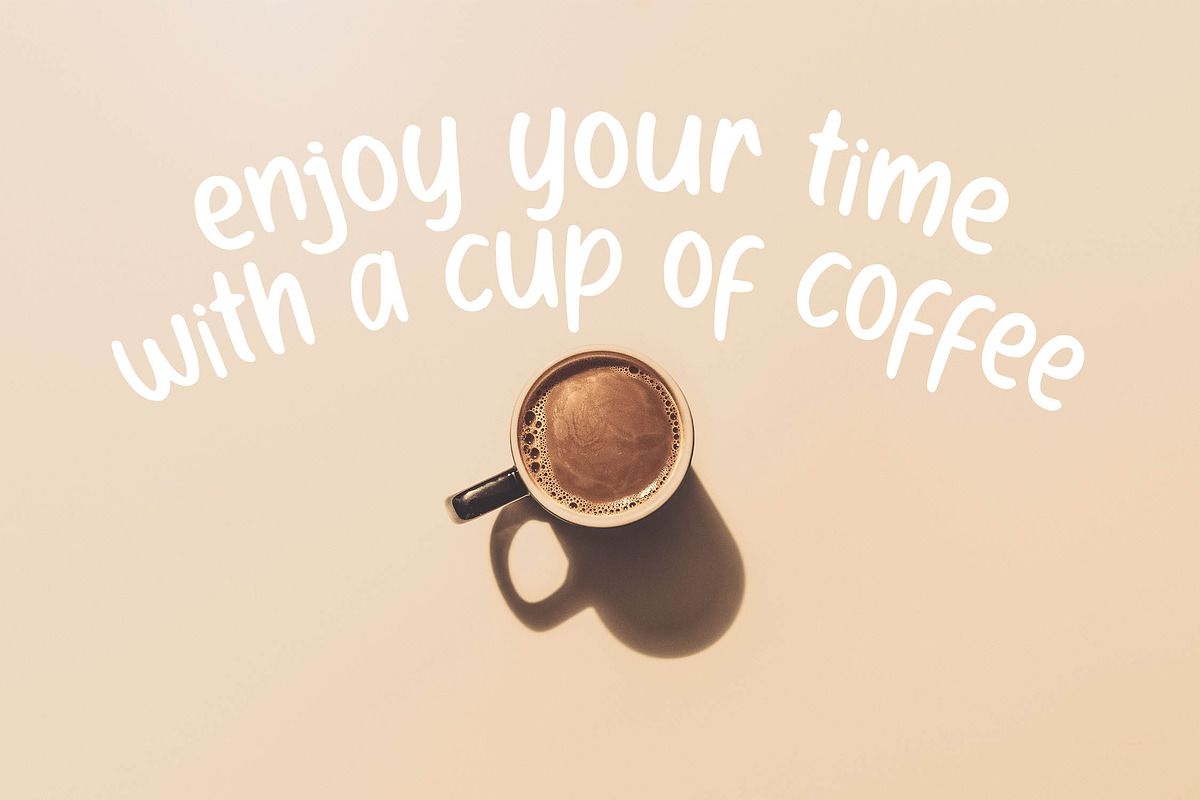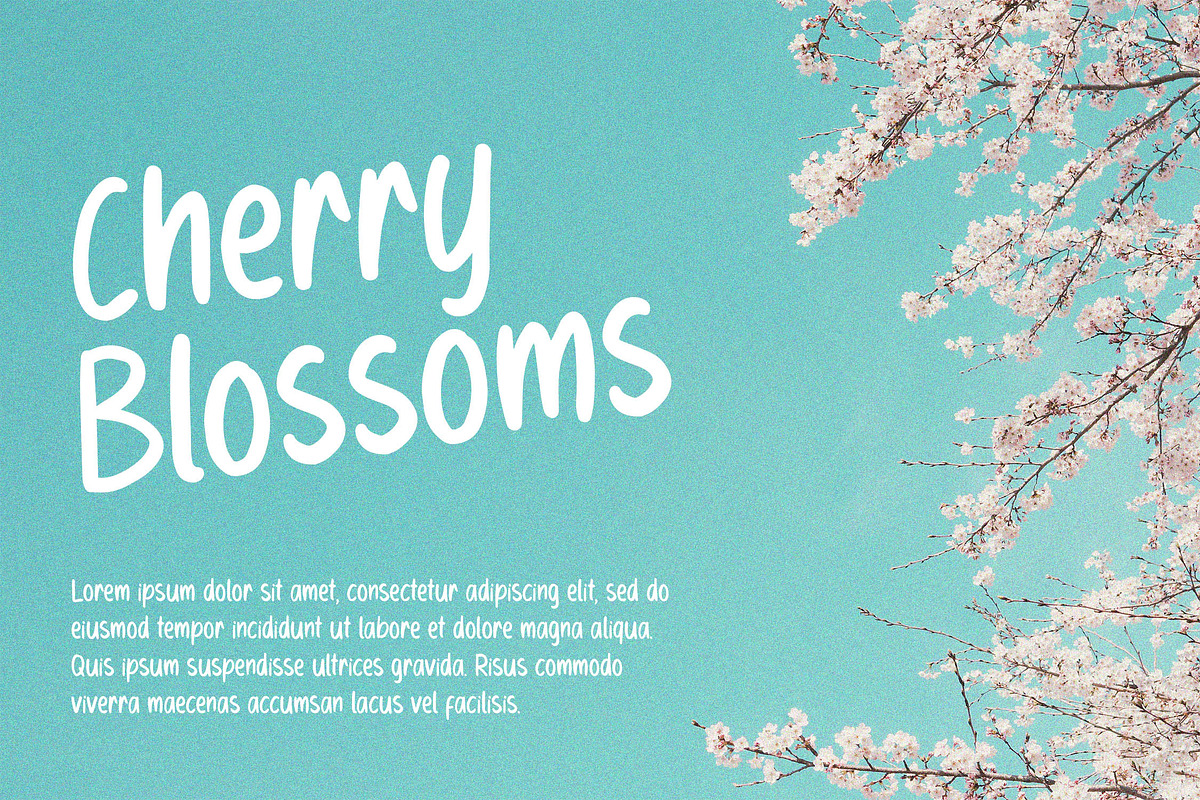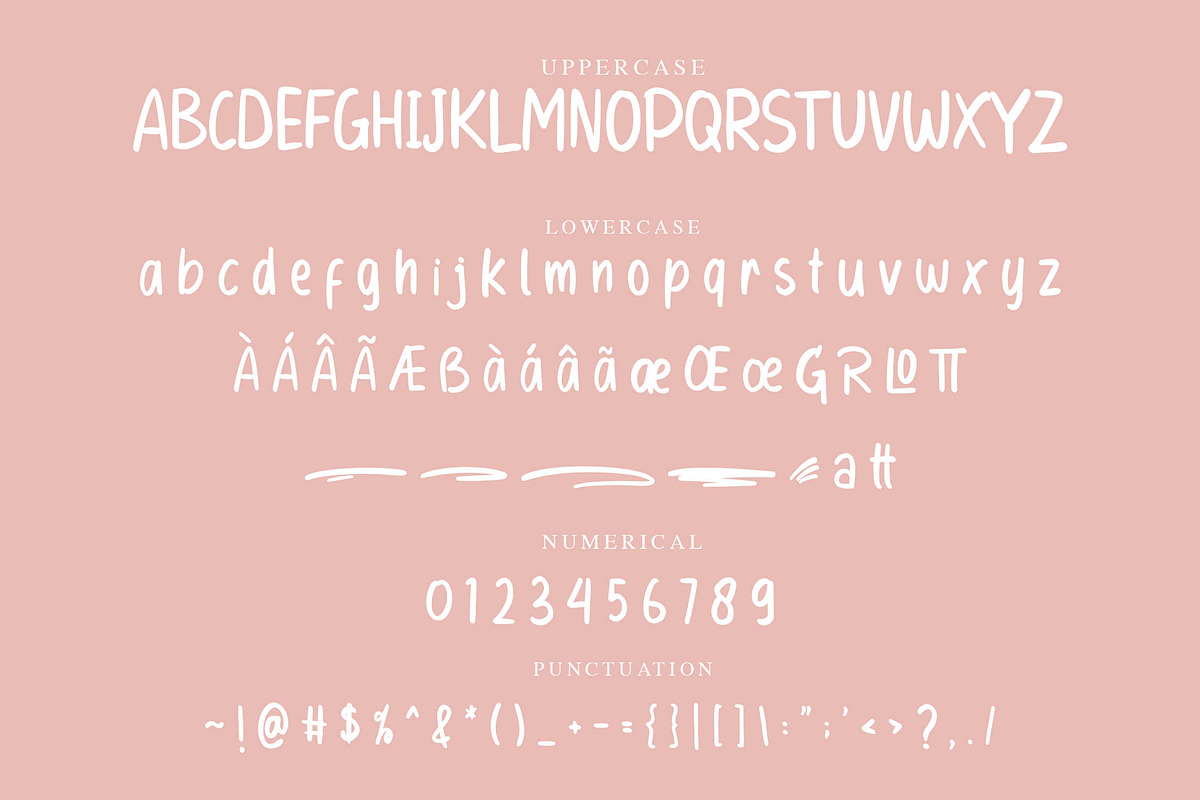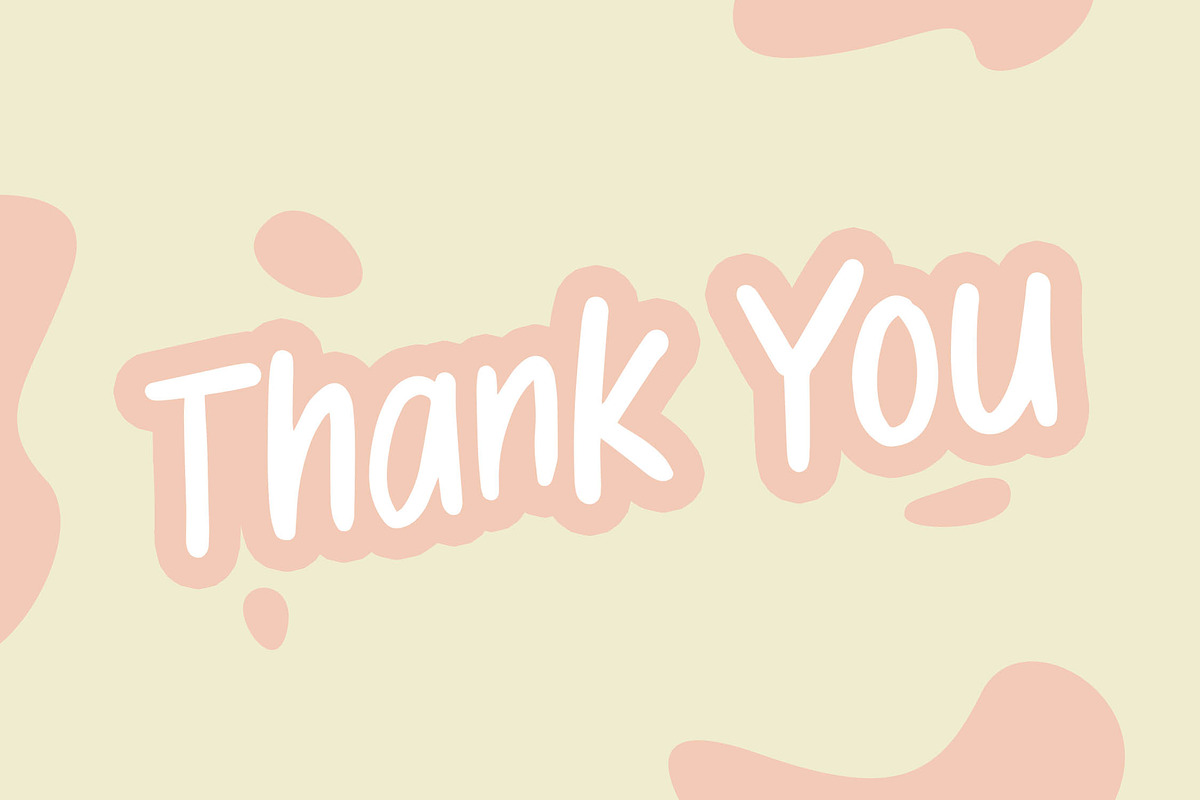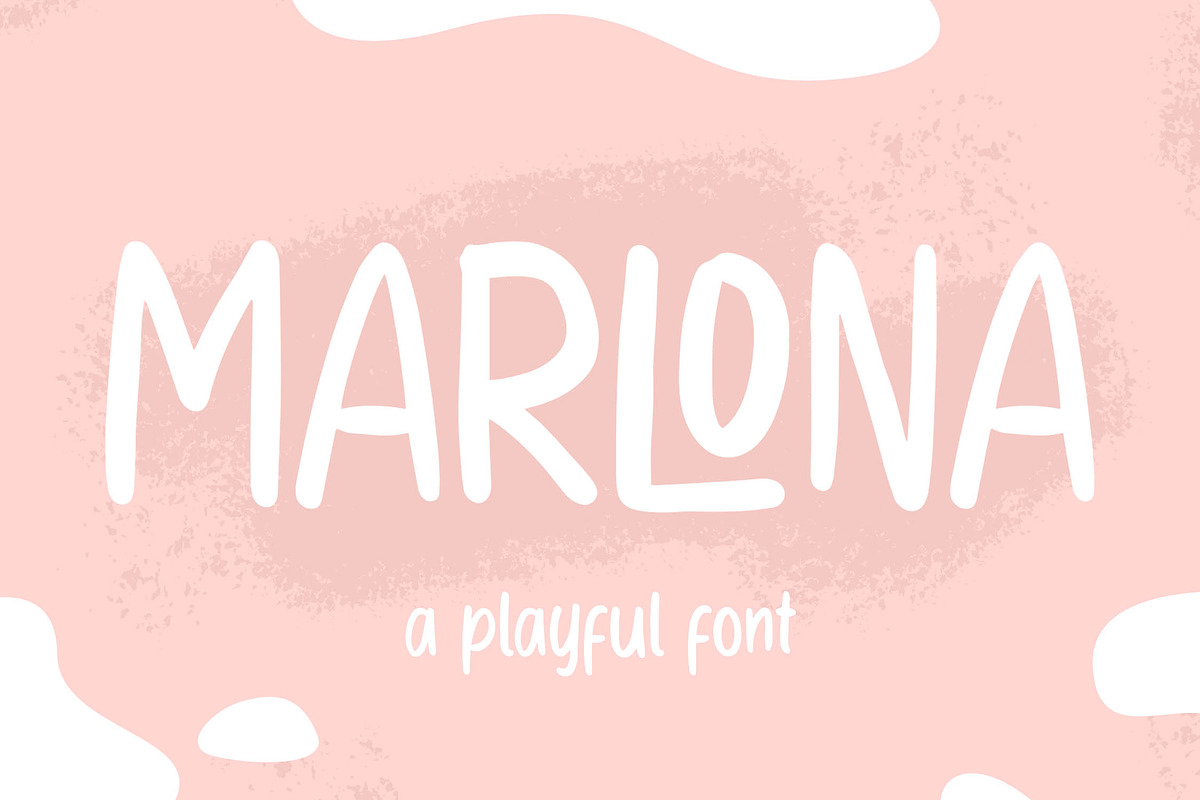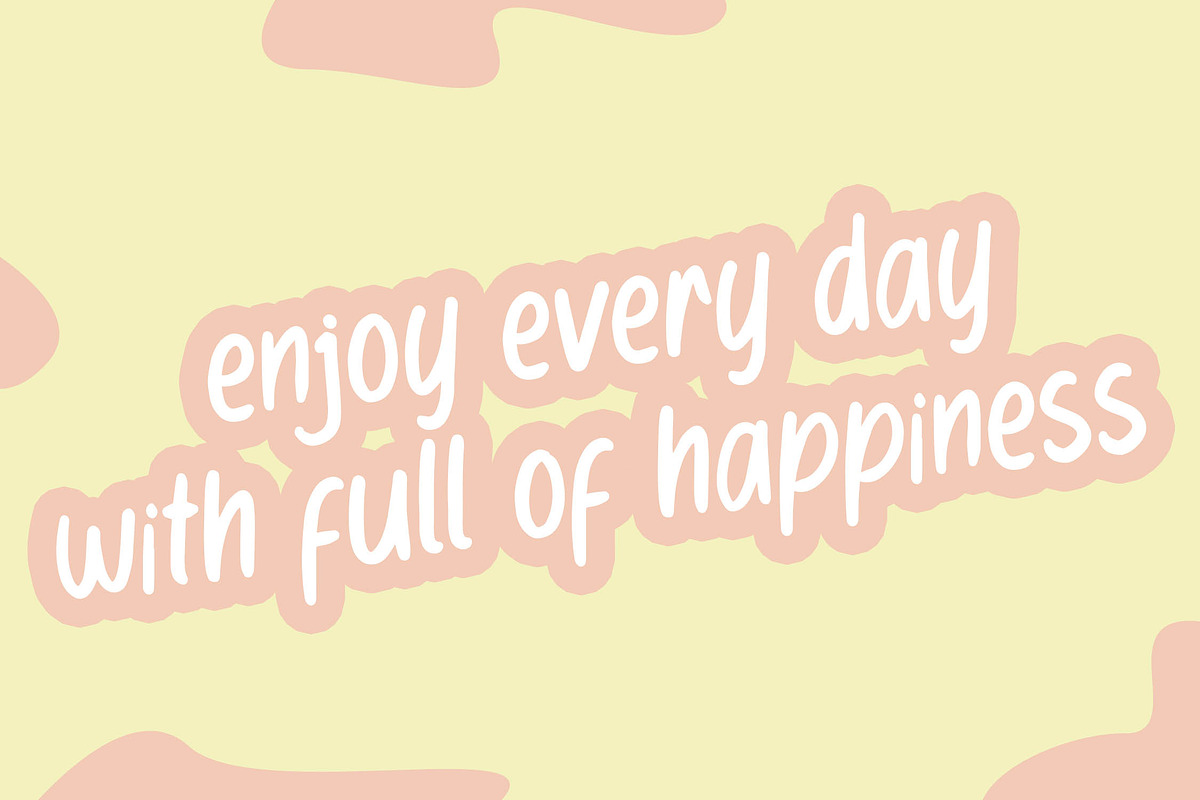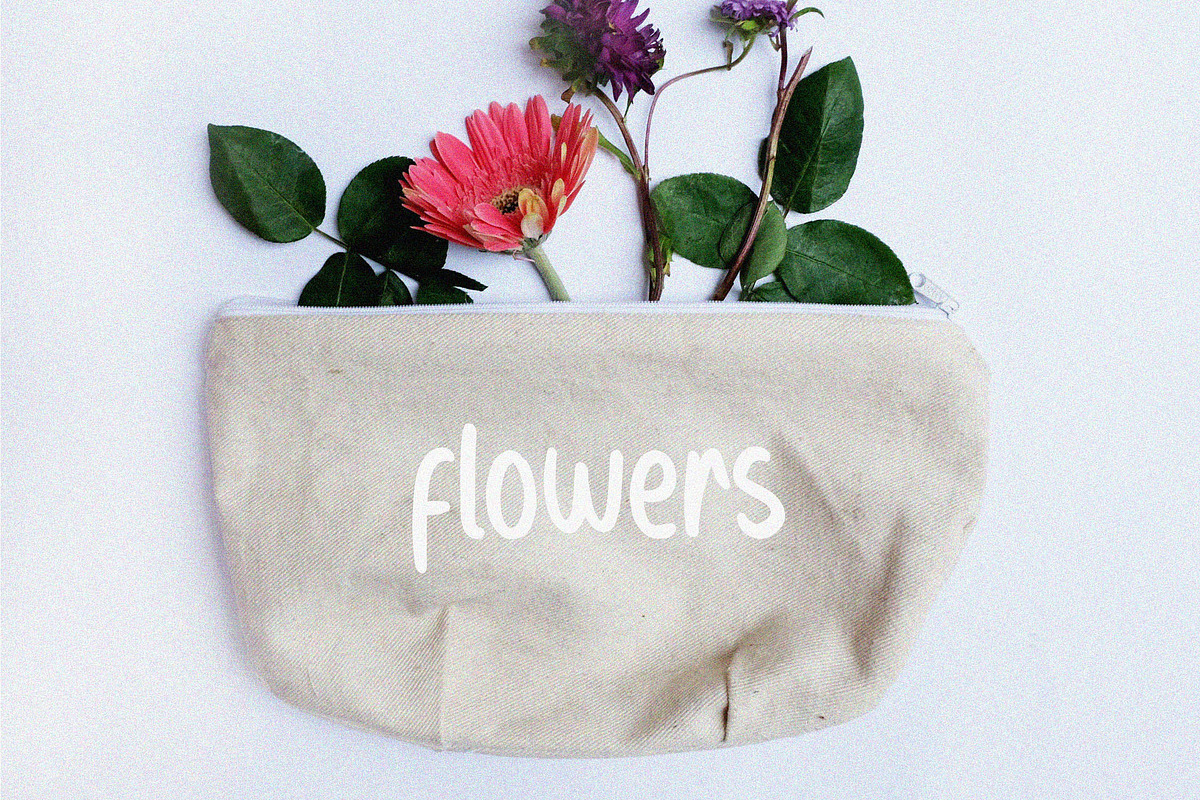
MARLONA - Playful Handwritten Font
MARLONA is a playful display font with a handwritten style. Is a font style that is made with scratches handwritten shapes font characters are very beautiful. Can be applied to support the graphic appearance of the product to be more attractive and unique. This font is very nice for making previews and covers designs, cute logos, shirts, and other graphic needs.
- Stylistic Alternate